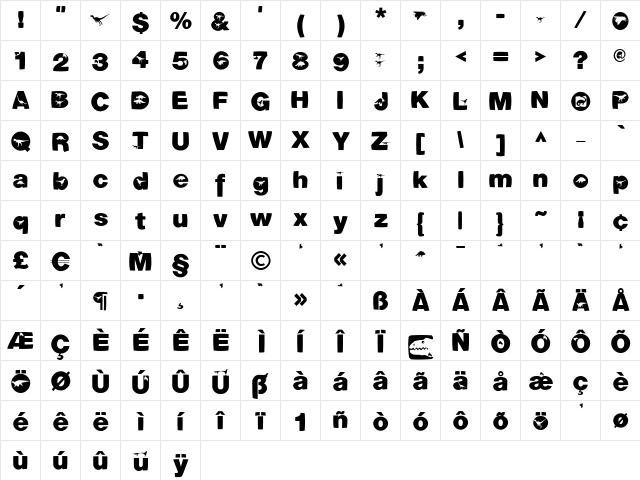
Dinotiqua-Heavy Regular
Design Context for Dinotiqua-Heavy Typeface
Dinotiqua-Heavy is a composed and adaptable typeface that performs quietly and consistently across a wide range of design contexts.